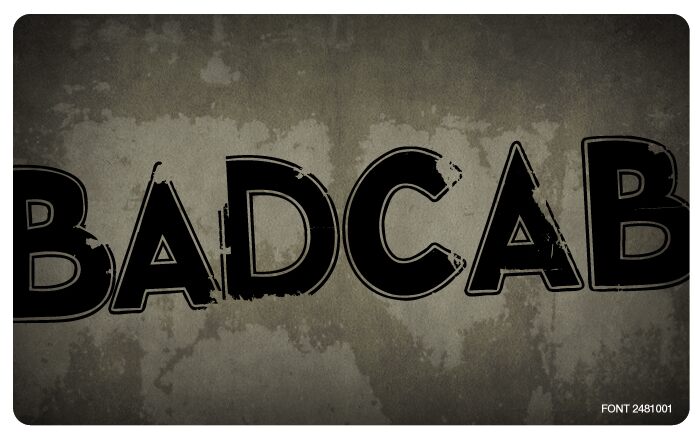
Badcab by Dismantle Destroy is a free eroded display font with broad squared capitals and a rough industrial finish. Its dense strokes are broken by scattered chips, scraped edges, and larger worn patches that vary noticeably from letter to letter. A fine outer contour line follows each form, adding a crisp graphic layer to the already battered surface.
Theatrical posters and garage branding draw on the same hard-used texture, though its blunt proportions also suit independent music packaging, streetwear graphics, and skate merchandise with an underground print-shop attitude. The damage recalls flaking paint, scuffed machinery, and repeatedly pasted street notices.